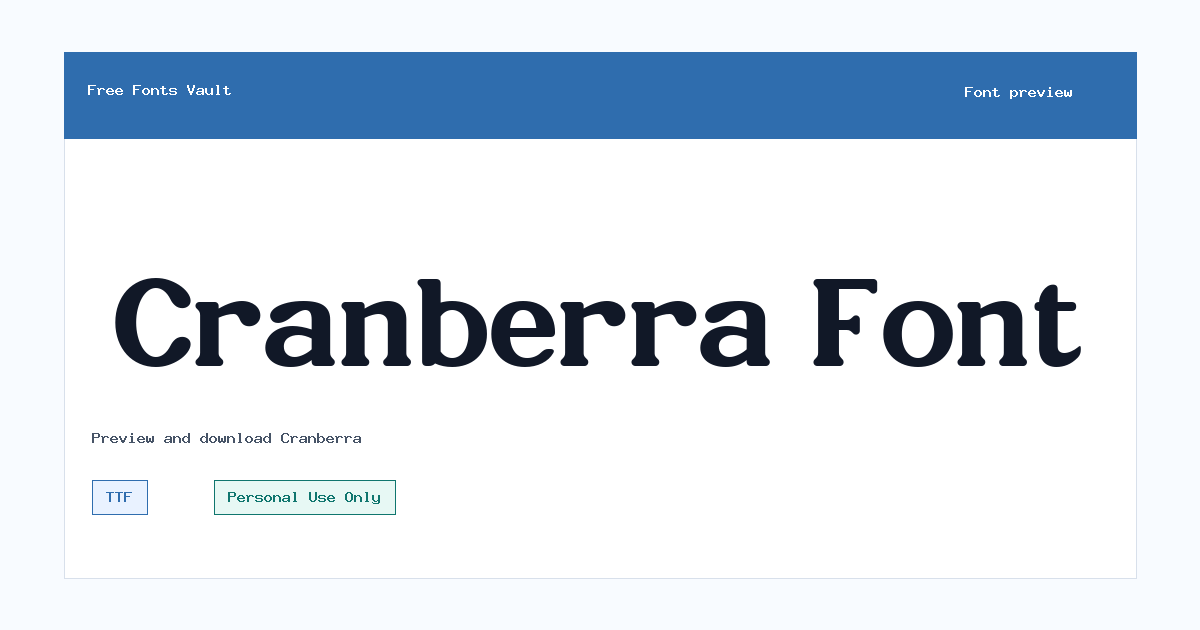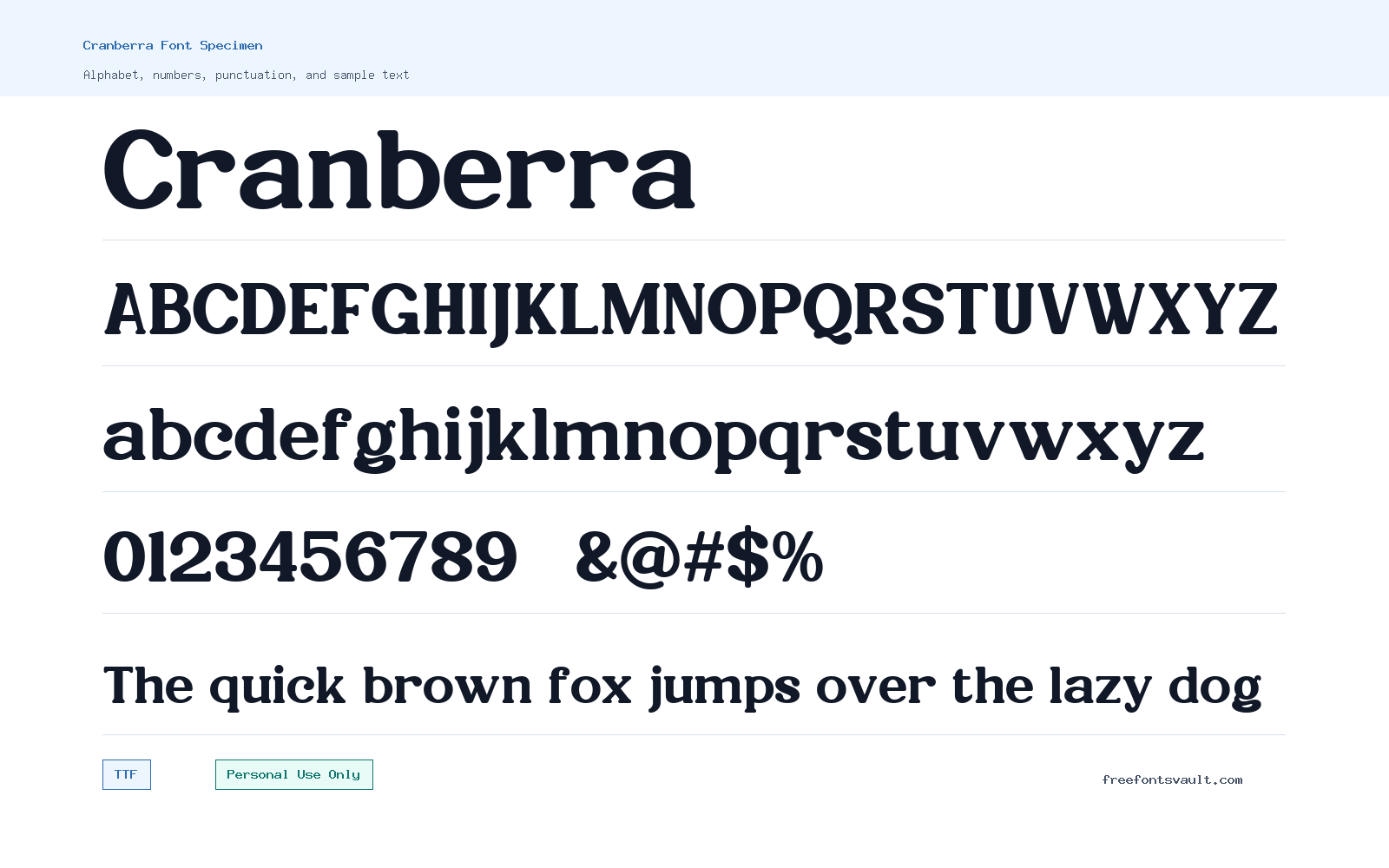
Cranberra
- Designer Pikgura
Cranberra is a serif font by Pikgura, offered in regular weight for personal-use projects. It is a good font to try when you want a composed serif look for short display text, title previews, and early design drafts.
About Cranberra Font
Cranberra comes as a regular-style serif font in both OTF and TTF formats. The family is listed with a normal style and 400 weight, so it is best approached as a single-weight typeface rather than a full text family with bold, italic, or extended weights. That makes it especially useful for quick layout testing, poster-style headings, invitation concepts, quote graphics, personal logo drafts, and other places where one clean serif voice is enough.
Use the preview tool to test Cranberra with the exact words you plan to use. Serif fonts can change character depending on letter combinations, spacing, and size, so check names, initials, numerals, punctuation, and all-caps text before downloading. For longer reading, try it in short paragraphs first and compare it with a simpler body font. If the page title or display line feels strong, pair Cranberra with a quiet sans serif for supporting text so the serif details stay clear.
- Regular weight serif style with normal font style and 400 weight
- Personal title designs, quote graphics, invitation drafts, and poster mockups
- Testing serif branding ideas, social graphics, and short display text before choosing a final typeface
What weight is Cranberra?
The listed style is regular, normal style, 400 weight. No bold or italic styles are confirmed for this font page.
Who designed Cranberra?
Cranberra is credited to Pikgura.
What is Cranberra best used for?
It is best tested in short display settings such as headings, personal graphics, invitation drafts, quotes, and branding concepts. For long text, preview a paragraph first to judge spacing and readability.